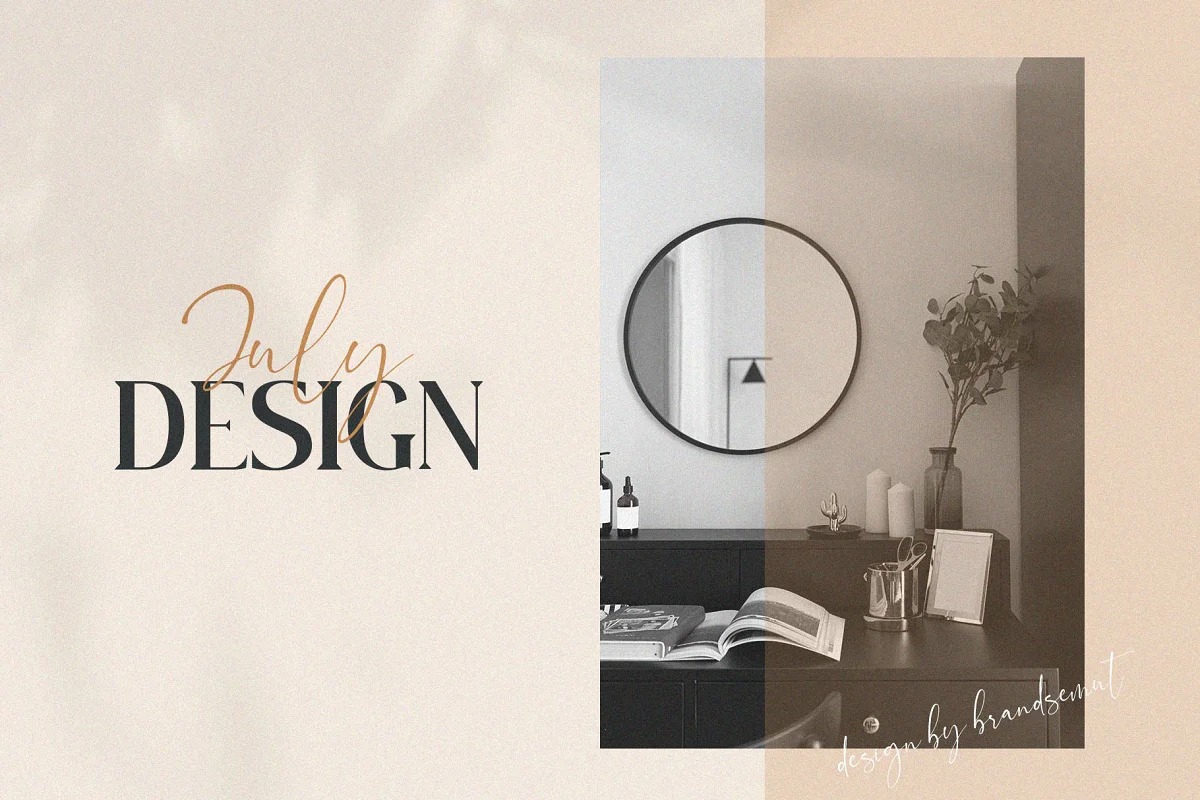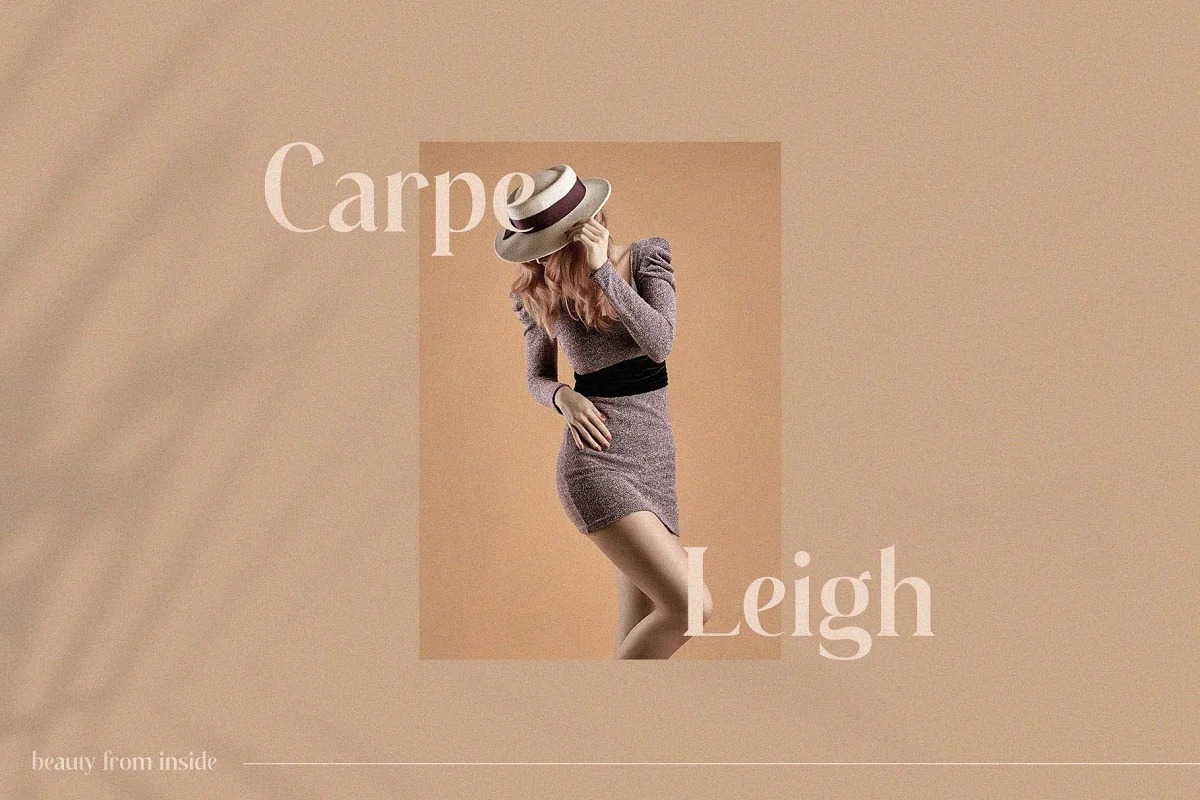
Walkester Font
Walkester Serif Font
It’s a New Modern Serif Typeface manufactured by BrandSemut. This another collection of Serif is perfect for your next branding project, excellent for your business. For those of you who are needing a touch of elegant, stylish, classy, chic and modernity for your designs, this font was created for you!
Walkester Font was built with OpenType features and includes ligatures, alternates, ending swashes, numbers, punctuation, and it also supports other languages.